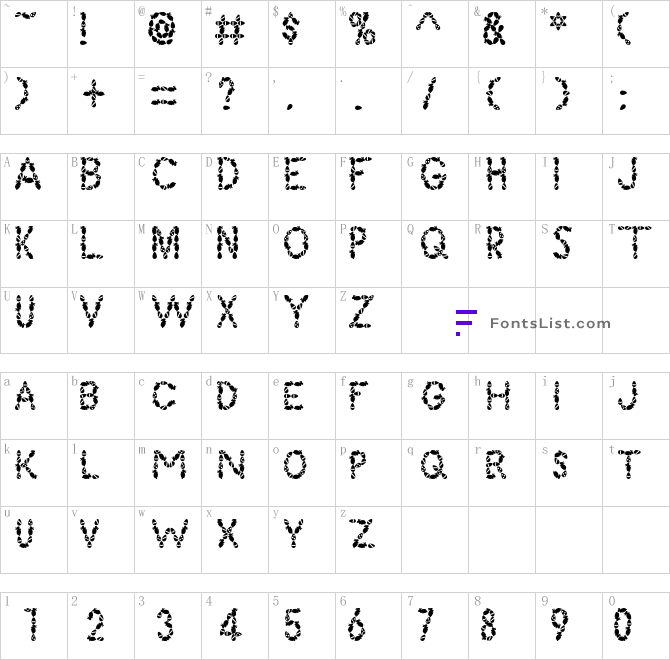
- Font Name:AC1-EasterBunny
- Full Name:AC1 EasterBunny
AC1-EasterBunny.ttf is a very beautiful artistic font, AC1-EasterBunny.ttf is widely used in the design and printing of various books and pictures,AC1-EasterBunny.ttf has a strong visual impact,AC1-EasterBunny.ttf is a commonly used font in newspapers, magazines and books, and is used in posters, e-commerce Poster design, store design, logo design, font design and other fields.AC1-EasterBunny.